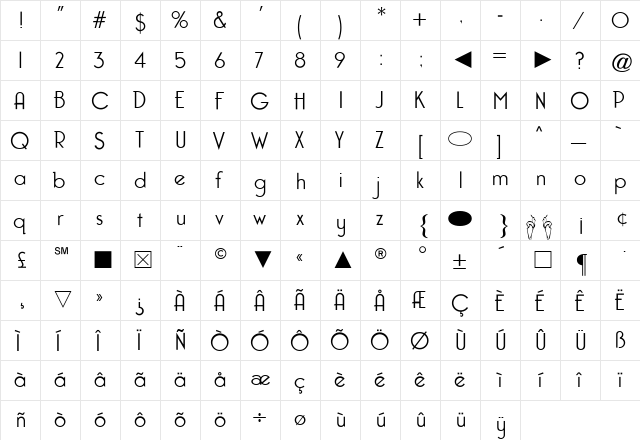
CgCaponeLight Medium
Design Context for CgCaponeLight Typeface
CgCaponeLight is a composed and adaptable typeface that performs quietly and consistently across a wide range of design contexts. Its slender proportions lend an understated elegance to any composition.